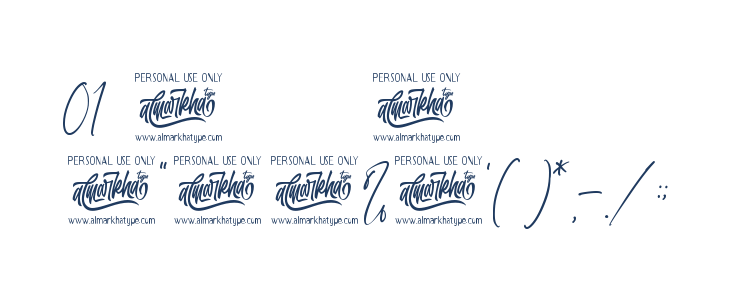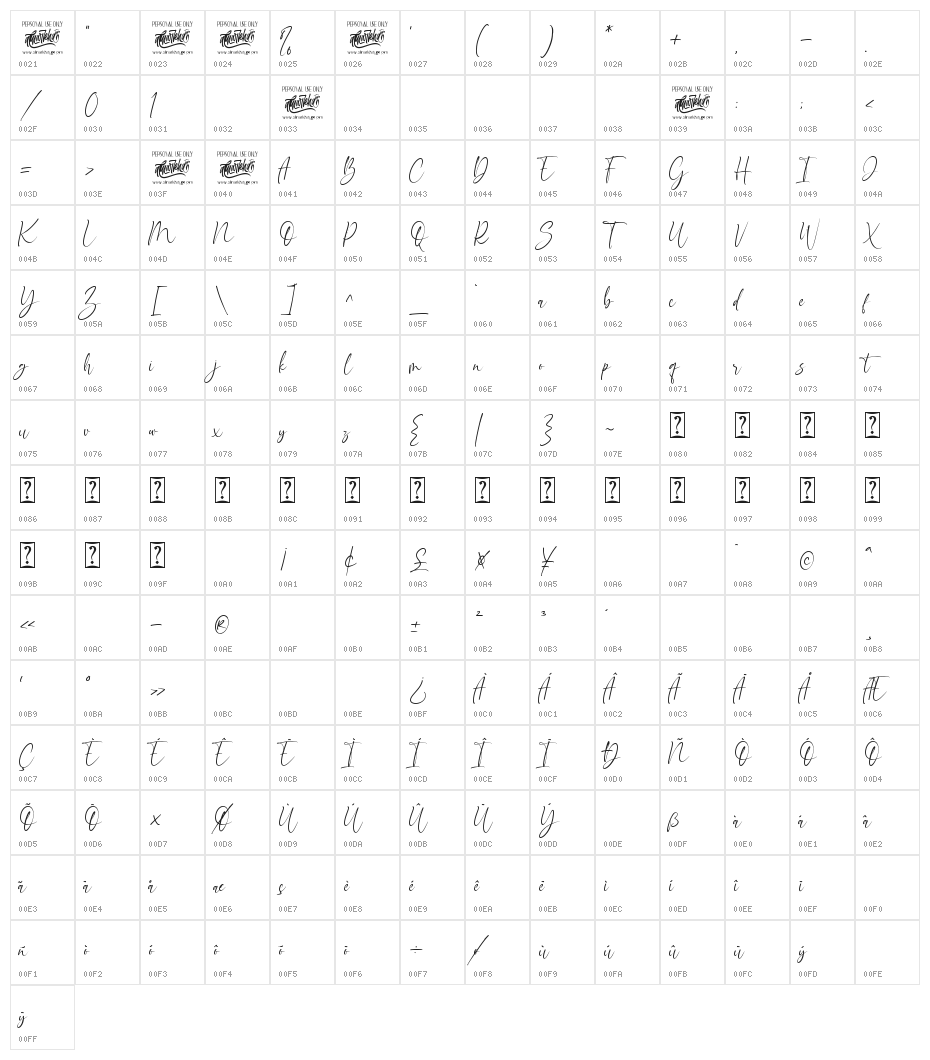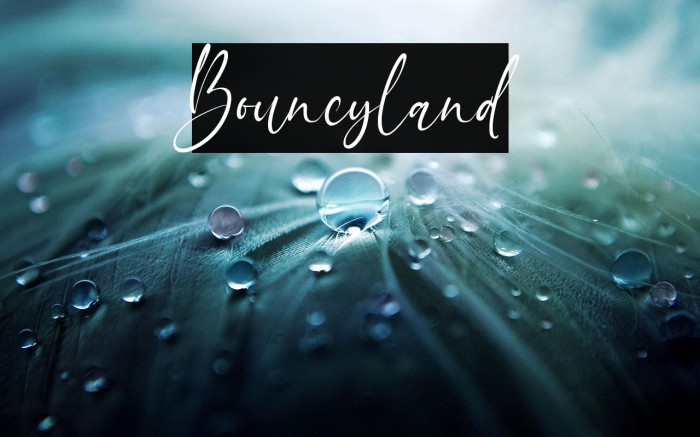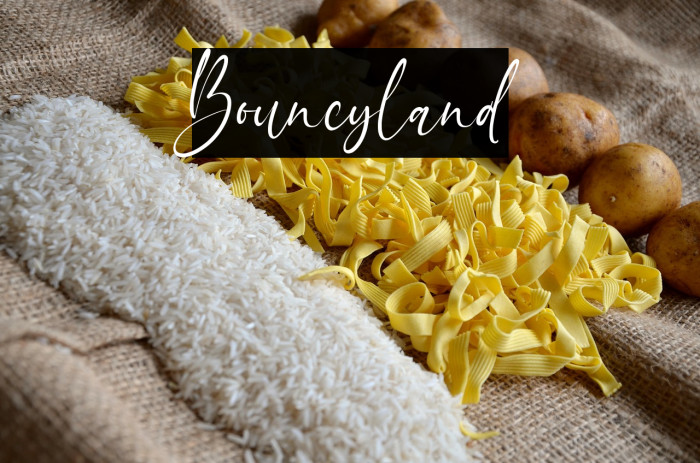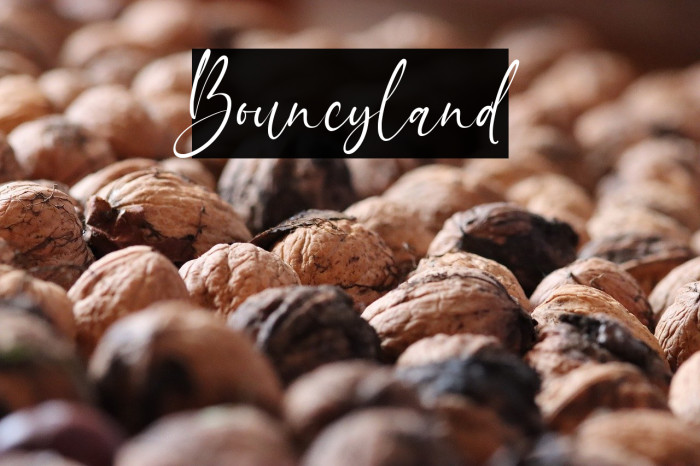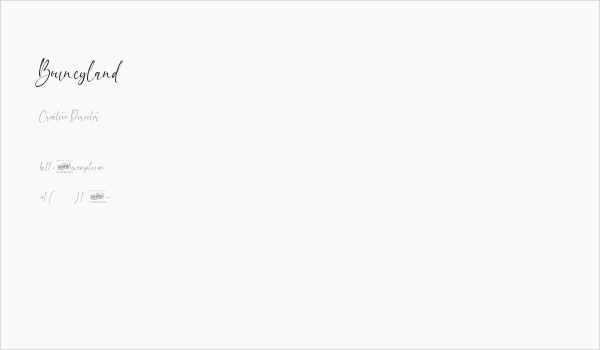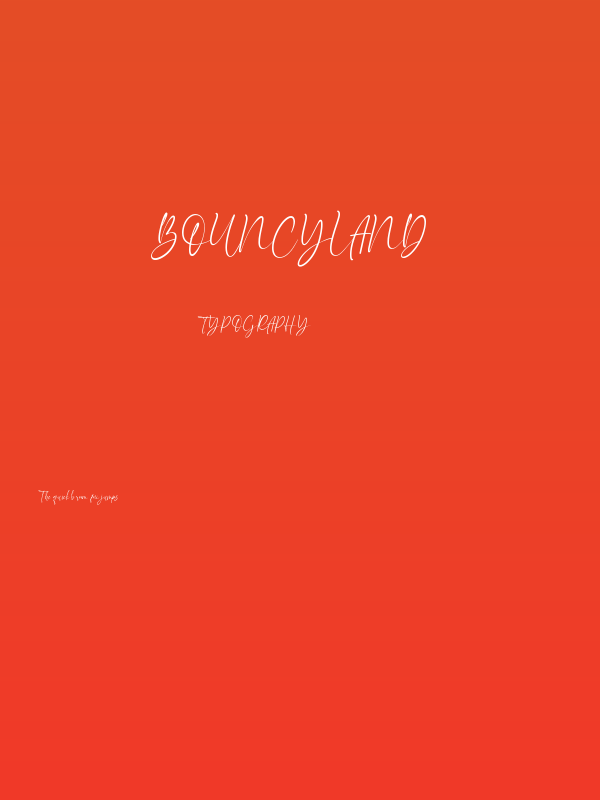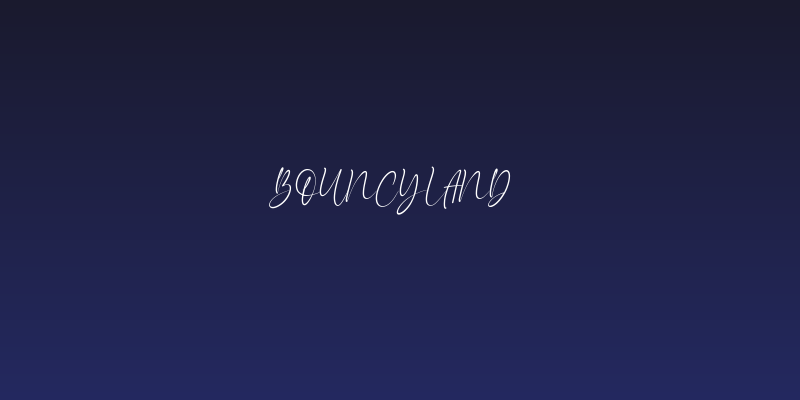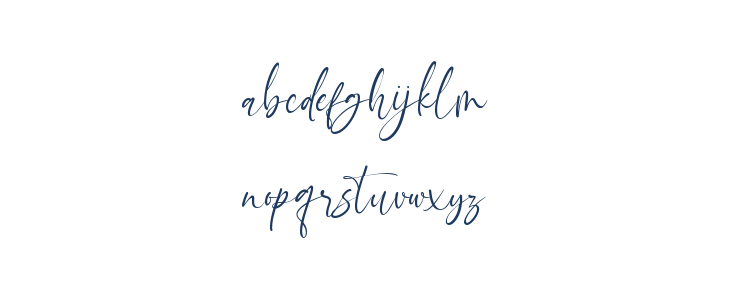
Bouncyland Font
Bouncyland Description
This font features a lively and flowing script style, characterized by its elegant, cursive letterforms. The uppercase letters are tall and slightly slanted, with smooth, sweeping curves that convey a sense of movement and grace. The lowercase letters maintain a consistent flow, with some letters featuring playful loops and flourishes. The overall appearance is both sophisticated and approachable, making it suitable for a variety of creative applications. The numerals and special characters are designed to complement the alphabet, maintaining the same fluidity and style. This font exudes a sense of personality and charm, ideal for projects that require a touch of elegance and creativity.